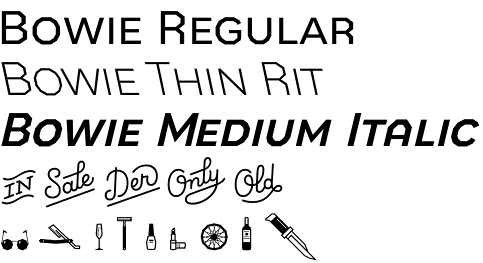
Bowie by Latinotype – a font with a great personality
Bowie is a modern font family that offers, above all, great personality. Indeed, everything about this font is about strength and character. Take the name, per example. James Bowie is one of the most prominent figures in the American history – a frontiersman, pioneer and a true hero in Texas in particular. His legend culminated with his death in the battle of the Alamo. His legacy is one of boldness and courage, making him one of the strongest personalities in the history of the USA. Such distinguished individuality is exactly what Bowie font offers. Its little bit rough and quite sharp shapes account for unique style and its using it will add strong casual urban feeling to any project. With that in mind, we would strongly recommend its application in the fields of publishing, packaging, branding, etc.
Together with its unique look, Bowie font family offers very interesting structure too. It consists of three main sections – a main one that comprises of a range of uppercase fonts in 5 weights, a nice set of catchwords and a set of very playful dingbats that will easily cheer the readers up. The main section’s five weights are Thin, Regular, Medium, Bold and Black. Each comes not only with its true regular Italics but with back slant ones too. Each font has a character set of 439 glyphs that covers none less than 206 languages.
Bowie font family is the best proof of what a team of professionals can achieve. It is a result of the co-operation between Latinotype Team and Bercz. Bowie project was realized by Valentina Vega, Cesar Araya, Leonidas Loyola, Bruno Jara and Rodrigo Fuenzalida who were supervised by Dany Berczeller, Daniel Hernandez and Luciano Vergara.